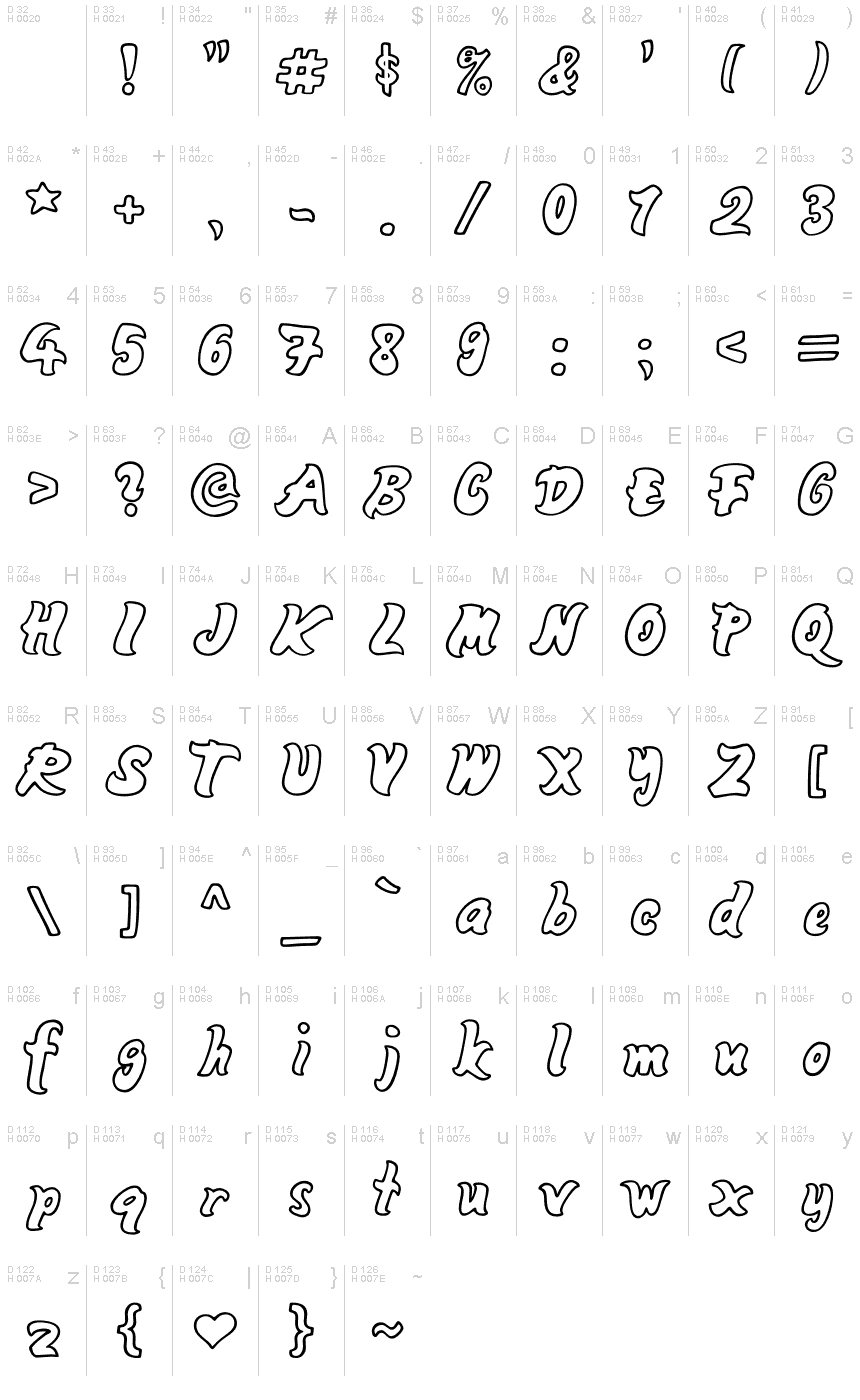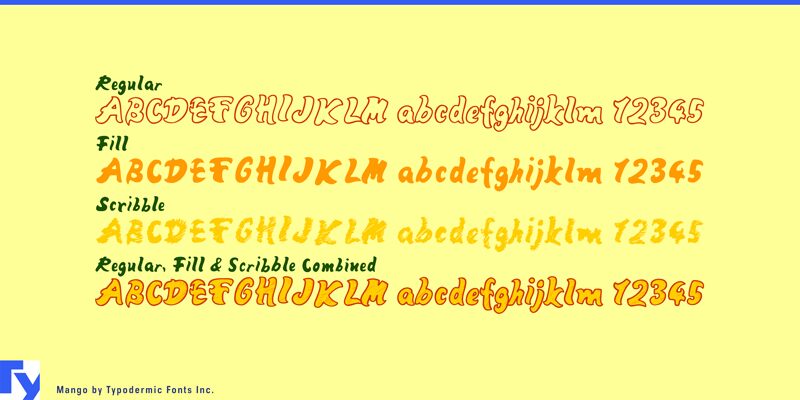
Mango-Regular
Mango is a cartoon typeface with a laid-back personality. Overlay the scribble and fill layers and play around with different color combinations. Most Latin-based European writing systems are supported, including the following languages.
Ray Larabie